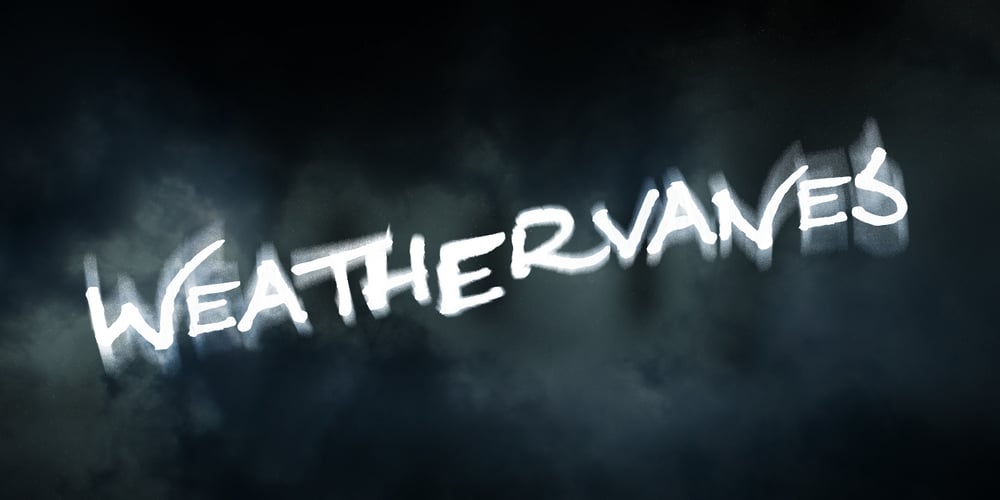
Weathervanes Font Family was designed by Matthew Tyndall, Jessica Mercer and published by Dismantle Destroy. Weathervanes contains 3 styles and family package options. This font was inspired by the handwriting of Jessica Mercer (Illustrator). The name was inspired by the band Freelance Whales.